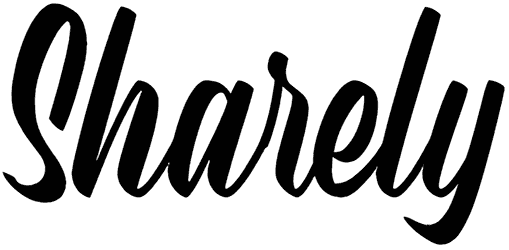
Sharely Font
Groovy, artistic, and fashionable, Sharely is a modern brush font that comes with a calligraphic taste and a unique look. This script font has the potential to make your design more eye-catching and memorable. You can us…
Groovy, artistic, and fashionable, Sharely is a modern brush font that comes with a calligraphic taste and a unique look. This script font has the potential to make your design more eye-catching and memorable. You can use it in different types of designs, such as shopping bags, T-shirt prints, branding materials, product packaging, party invitations, and much more.